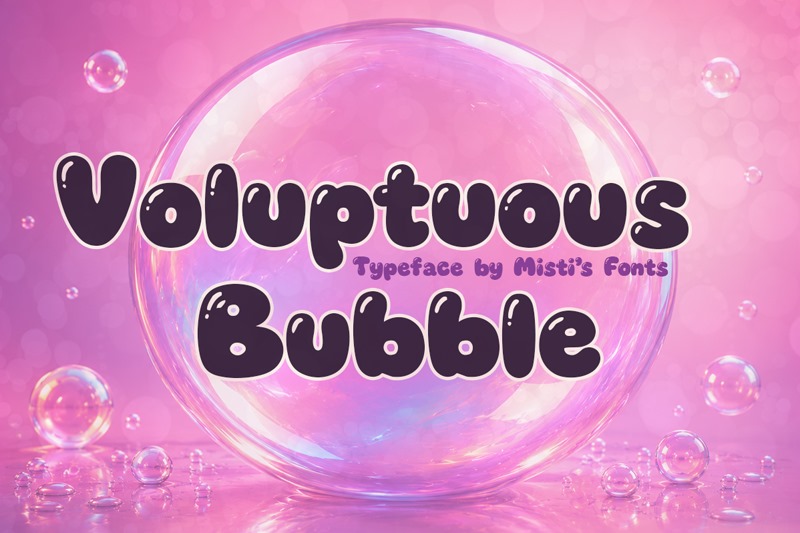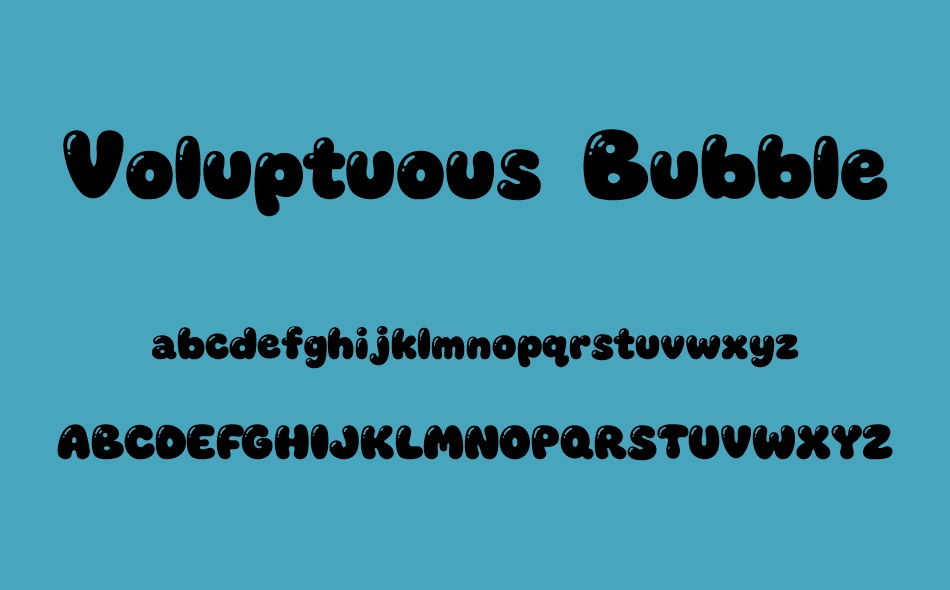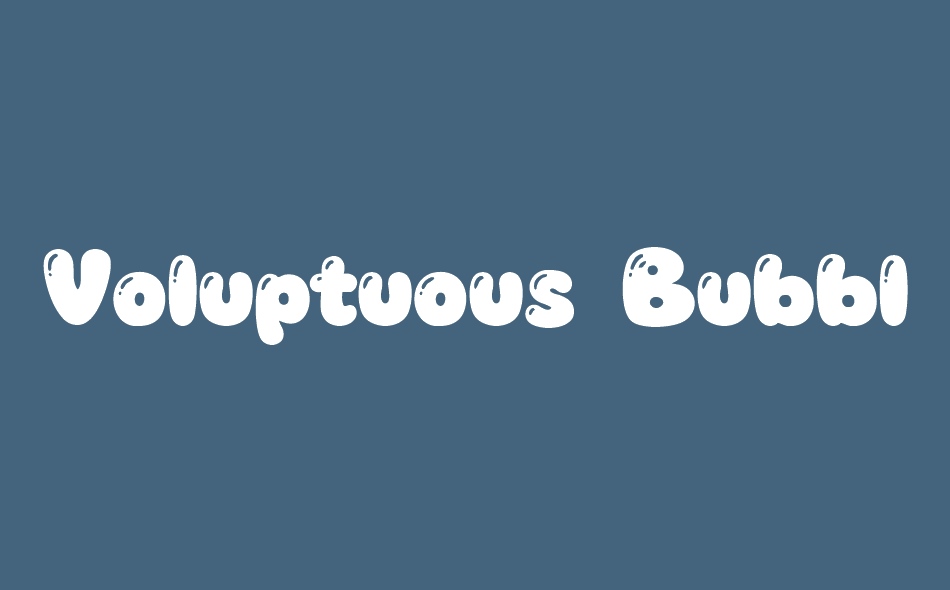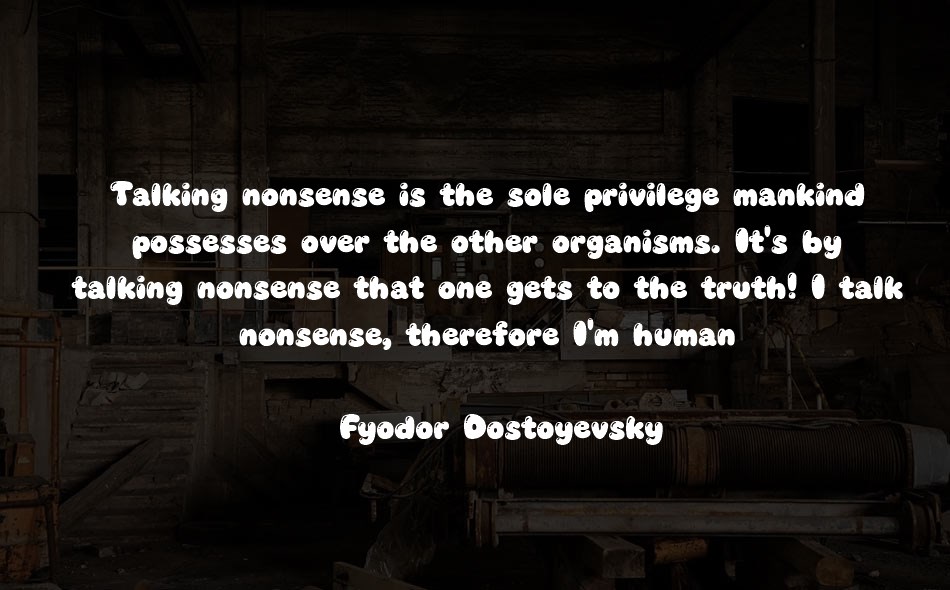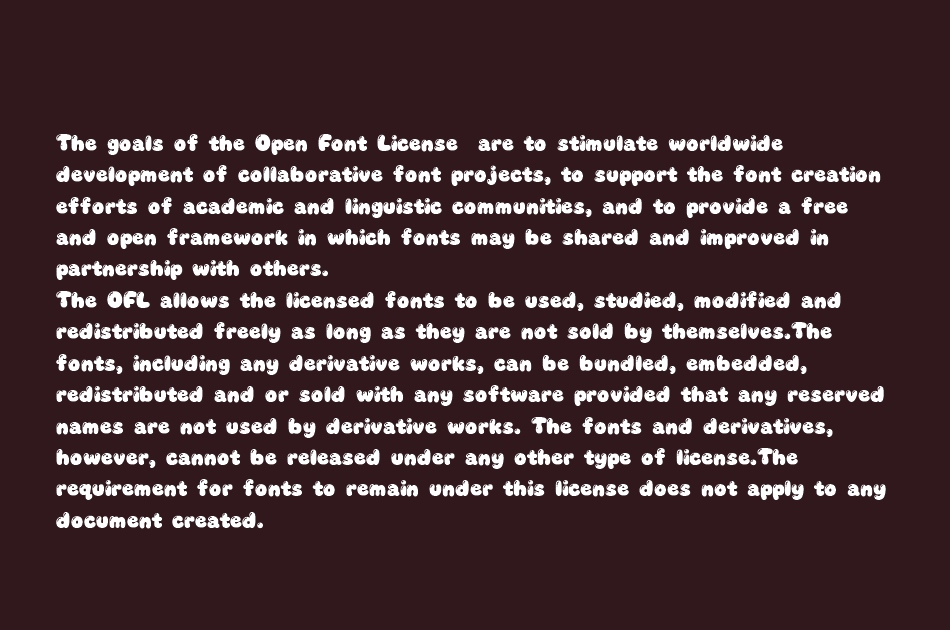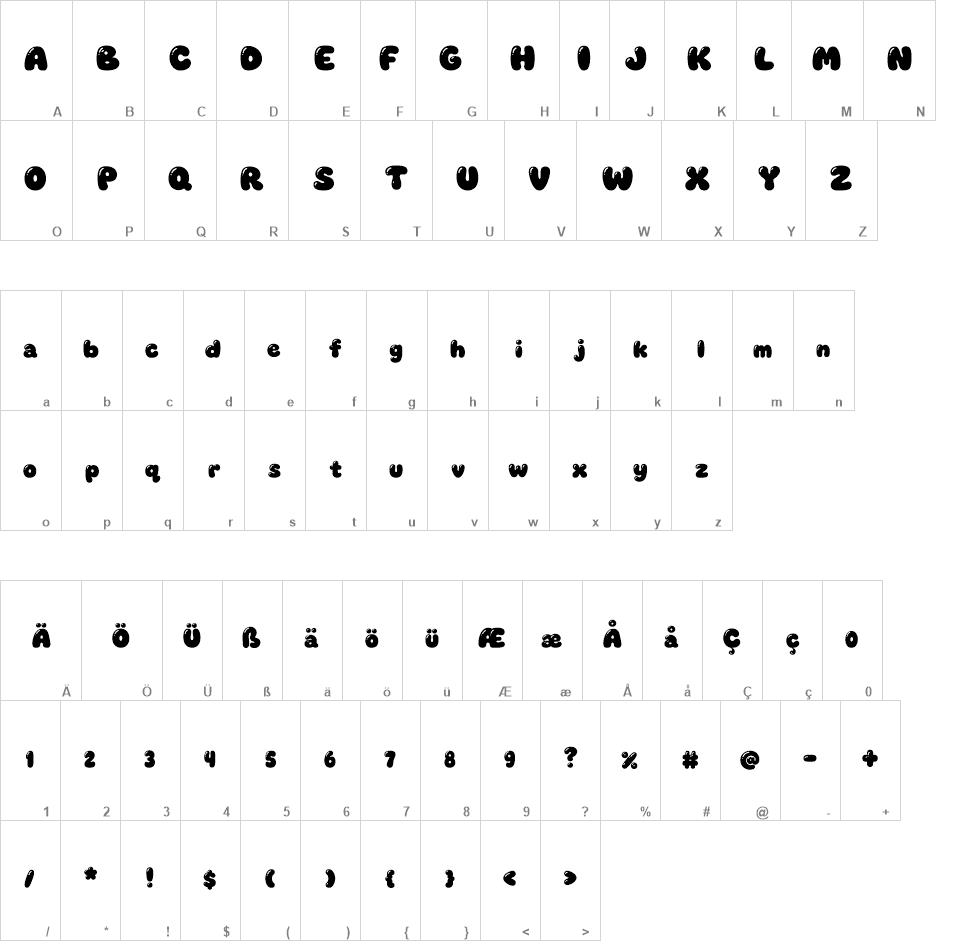
Voluptuous Bubble font
Step inside the playful world of Mistis Fonts where creativity meets charm in the form of the Voluptuous Bubble Typeface. Boasting thick and well-rounded characters, this font is an ode to the childlike simplicity of bubble letters and the joyous, pop-culture nostalgia of bubble gum. Immerse yourself in this relentlessly cheerful typeface that is guaranteed to add a generous dollop of fun to any creative canvas. So whether you are designing a vibrant poster or are looking for the perfect font for a whimsical project, the Voluptuous Bubble Typeface is the ultimate infusion of young spirit and visual delight.